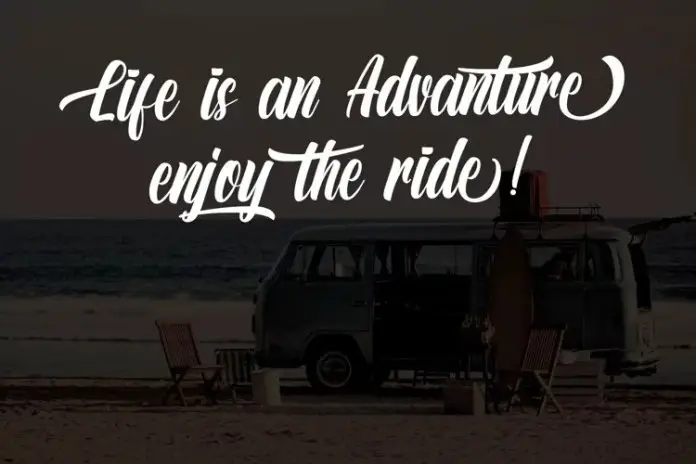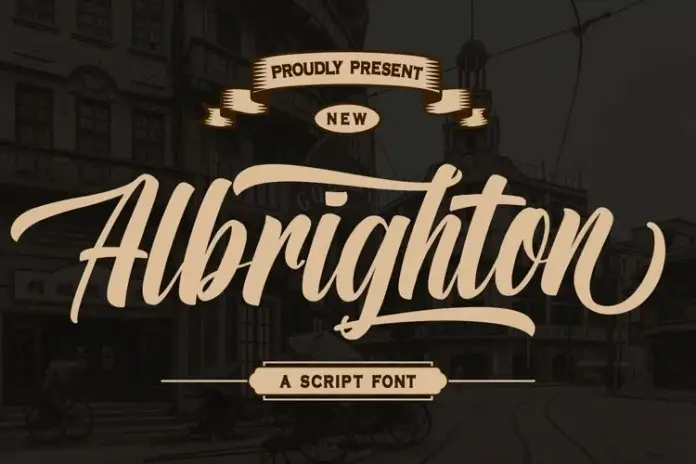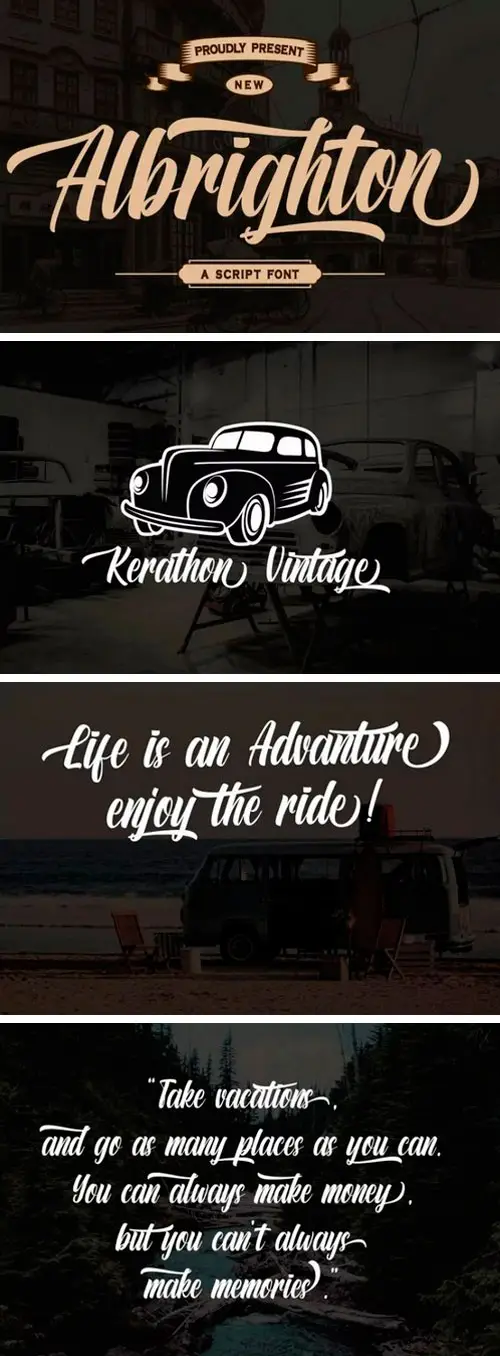
Albrighton Script Font
Introducing the Albrighton Script Font, a beautifully crafted typeface that exudes elegance and sophistication. This font features a stylish cursive design, making it perfect for a variety of creative projects.
• Stylish cursive design
This font is ideal for branding, logos, invitations, and any project that requires a touch of elegance. Its unique style adds a personal touch to your designs.